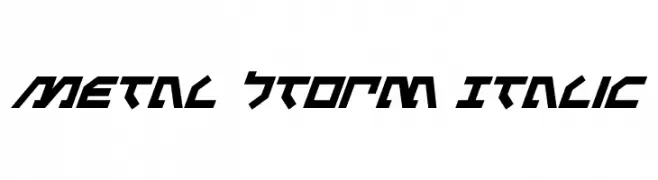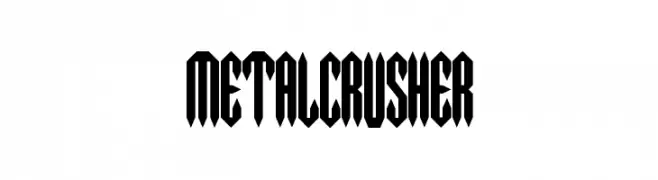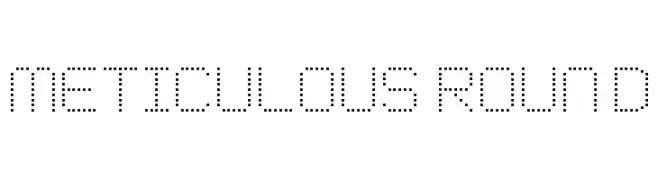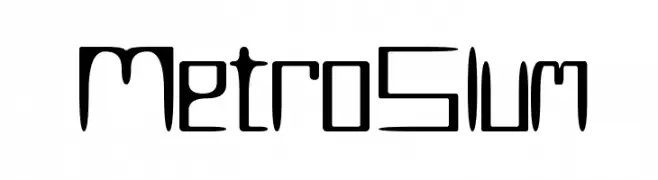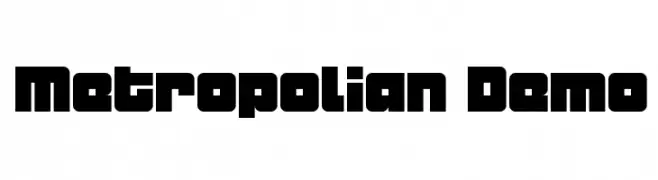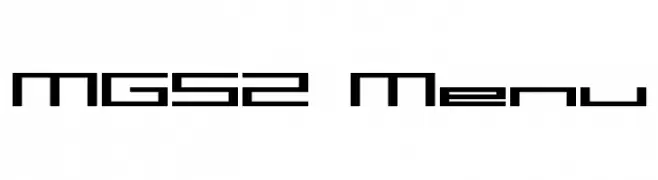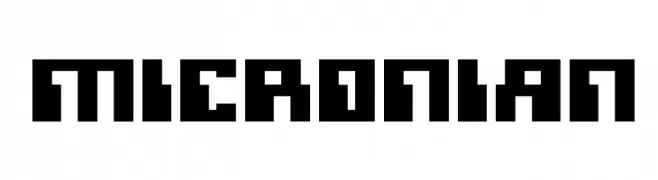
A bold, angular, and condensed italic font with a futuristic style.
A bold, angular, and italicized font with a futuristic and aggressive style.
A bold, angular font with high contrast and tight spacing, perfect for impactful designs.
A modern, geometric font with a futuristic and clean design.
A bold, geometric font with a modern, industrial aesthetic.
A bold, futuristic font with geometric and abstract elements.
A bold, geometric font with a modern, digital aesthetic.